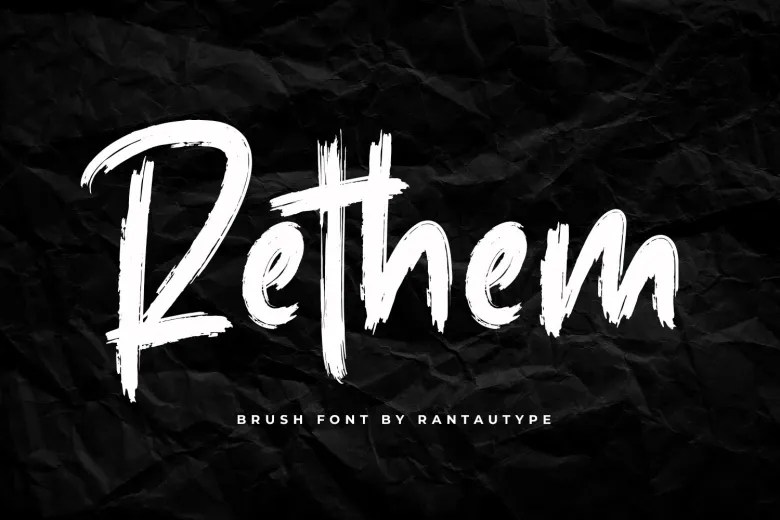
Rethem Font
Rethem is an aggressive brush font designed to make a bold statement in any design project. Its distinctive, dynamic style is perfect for adding a touch of edge and energy to your creative works.
Features of Rethem:
• Aggressive Brush Style: With its strong, energetic brush strokes, Rethem commands attention and adds a powerful visual impact. This makes it an excellent choice for projects that need to stand out.
• Bold Backdrop: The font’s aggressive style can serve as a dramatic backdrop for design elements, making it ideal for creating memorable logos and impactful packaging designs.